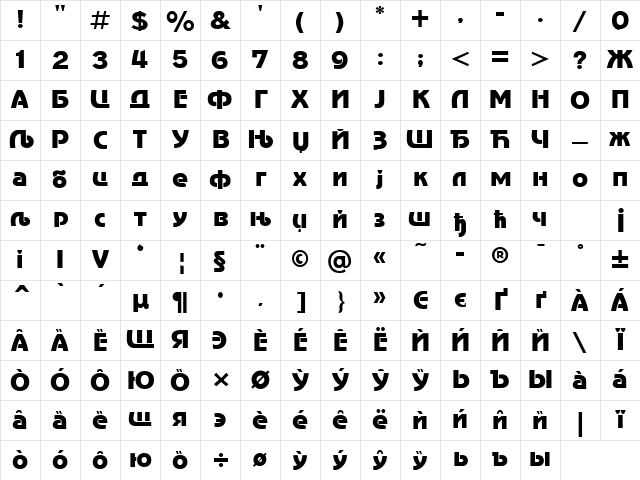
C_AdverGothic Regular
Complete C_AdverGothic Regular glyph index. Displaying only characters natively supported by C_AdverGothic Regular font.
Design Context for C_AdverGothic
C_AdverGothic takes a clean, functional approach - its unadorned letterforms prioritise legibility and work reliably across screen and print environments.
Font Pairing: Works well alongside a characterful serif or display font that can carry the expressive load while C_AdverGothic handles the functional copy.
Pro Tip: Use C_AdverGothic for UI labels, navigation, and short-form body copy where clean legibility is the priority.